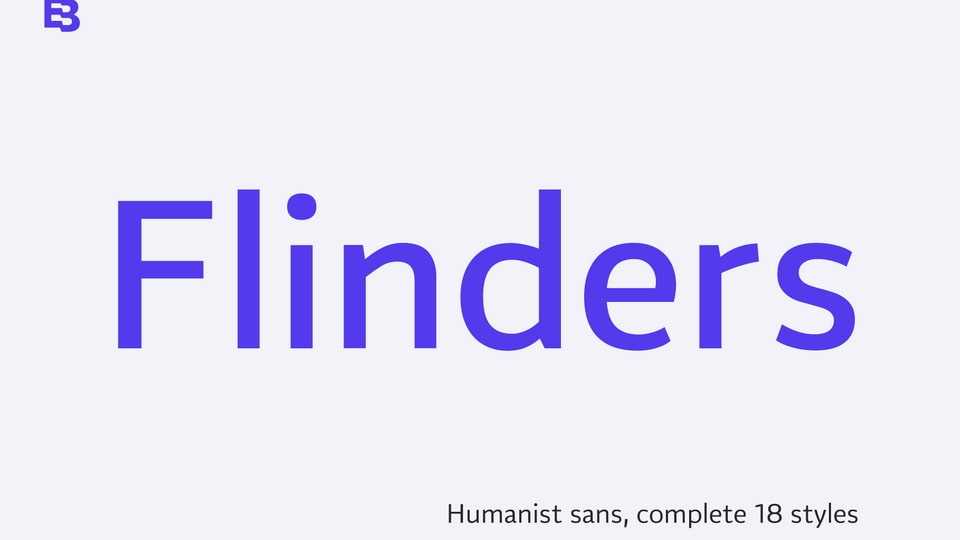
Download Flinders font, a humanist sans serif typeface. Flinders designed to fit for various reading purposes, it has text optimize letterforms that focus for legibility and ease reading.